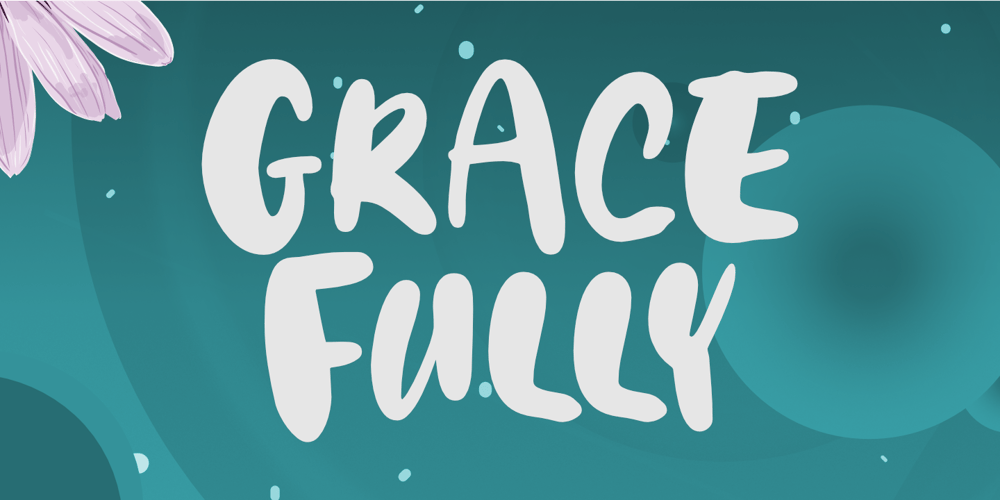
Gracefully Font Family was designed by Nurul Hidayani and published by Olivetype. Gracefully contains 1 styles and family package options. Gracefully is a cute and fun handwritten font that is suitable for headlines, logotypes, and titles. Its cute and bold look is sure to add personality to any project.So what’s included : Basic Latin Uppercase and Lowercase Numbers, symbols, and punctuations Multilingual Support. PUA Encoded and fully accessible without additional design software Simple Installations Works on PC & Mac Thank You.